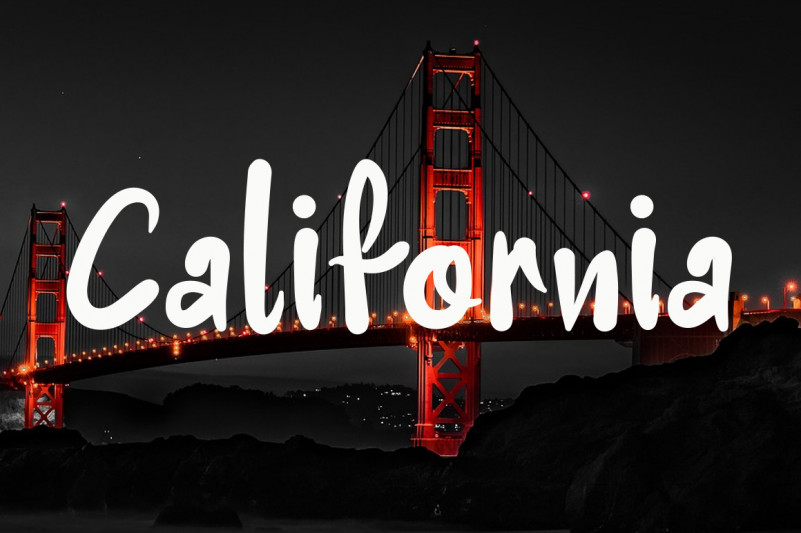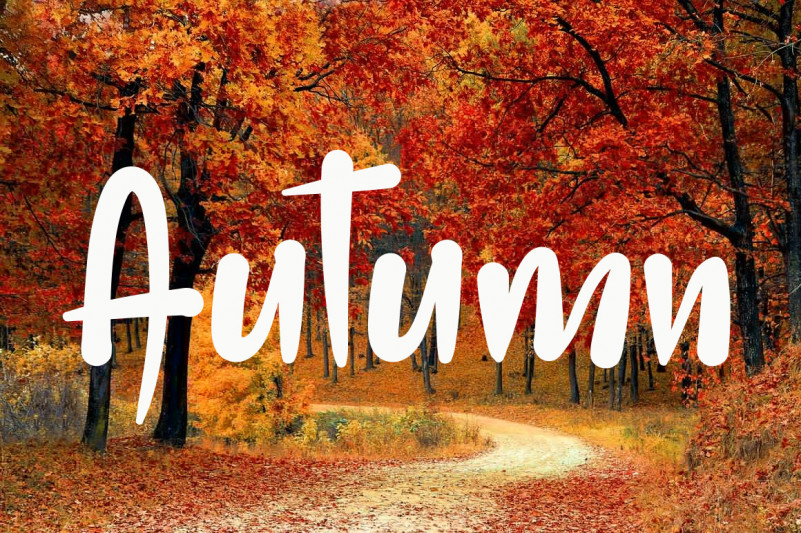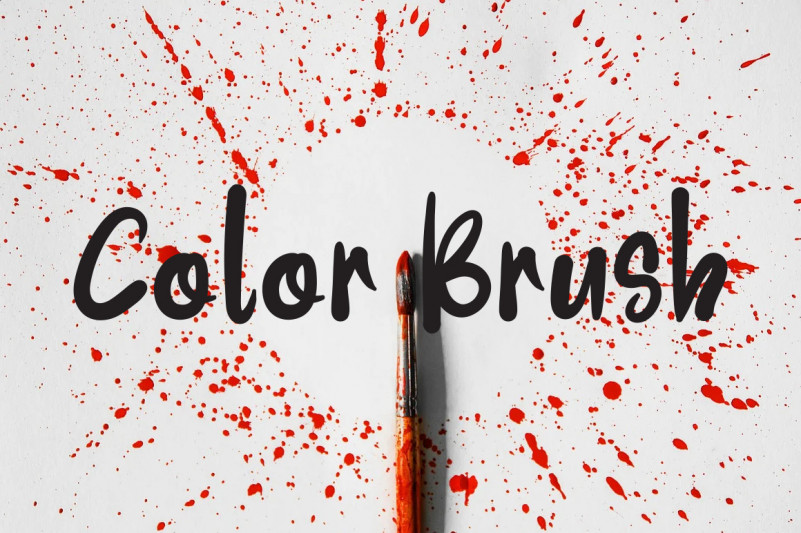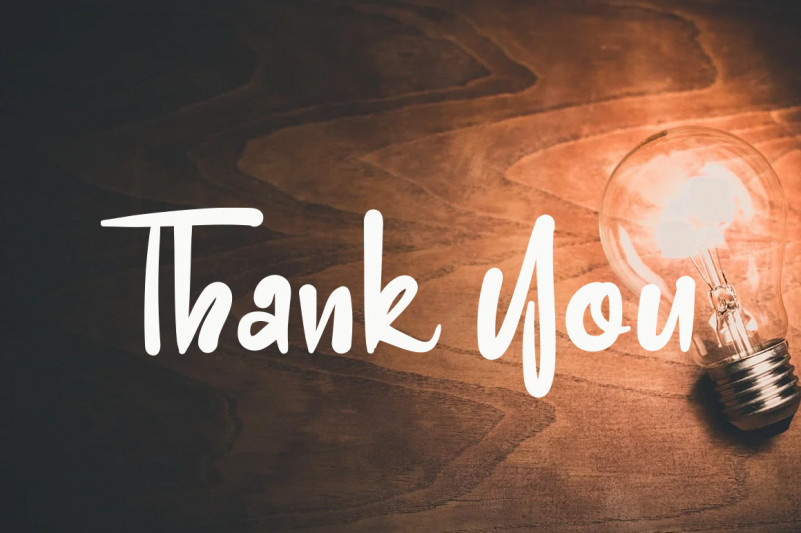
Sydney Script Font
This is a cute and adaptable paint brushed handwritten font. No matter the topic, this font will be an incredibly asset to your fonts’ library, as it has the potential to elevate any creation.